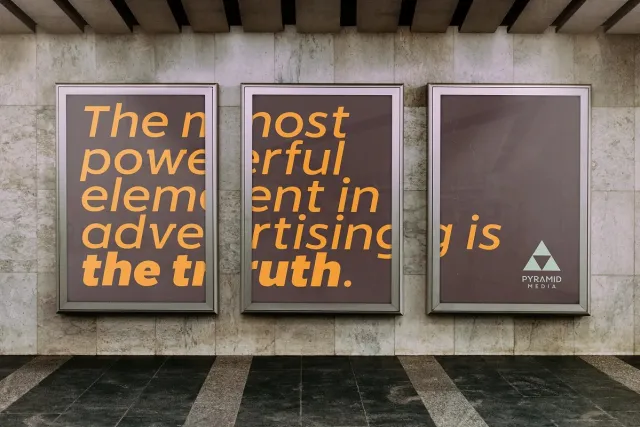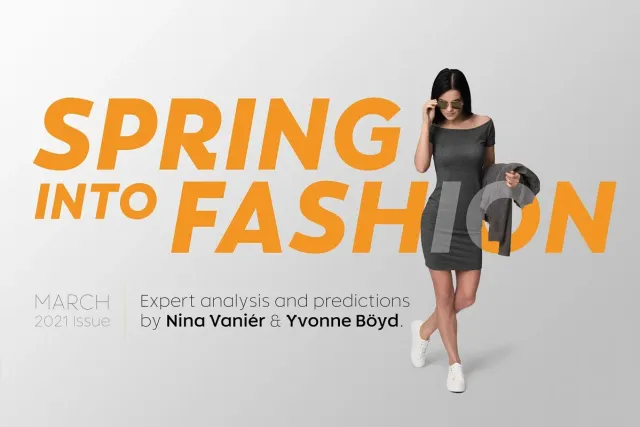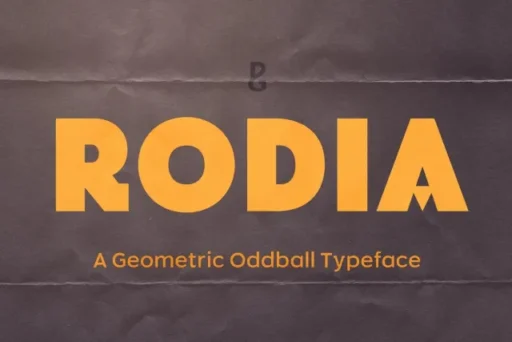
Rodia Font
Inspired by the “RADIO” sign that once lit up 5041 Pico Boulevard in Los Angeles in 1985, this humanist sans serif offers a fresh take on geometric forms. It comes in two styles and nine weights. Use it for bold logos, distinctive branding, or to give your body text a unique voice. Its balanced shapes bring warmth and clarity to any project. Whether you need eye‑catching headlines or easy‑reading paragraphs, this font delivers both style and function.
Where Rodia Font works best
Rodia Font stays legible at small sizes, which makes it a strong choice for navigation, buttons and dashboards in web design and app interfaces.
Clean sans serifs like Rodia Font are the default language of SaaS, fintech and product branding.
What is Rodia Font good for?